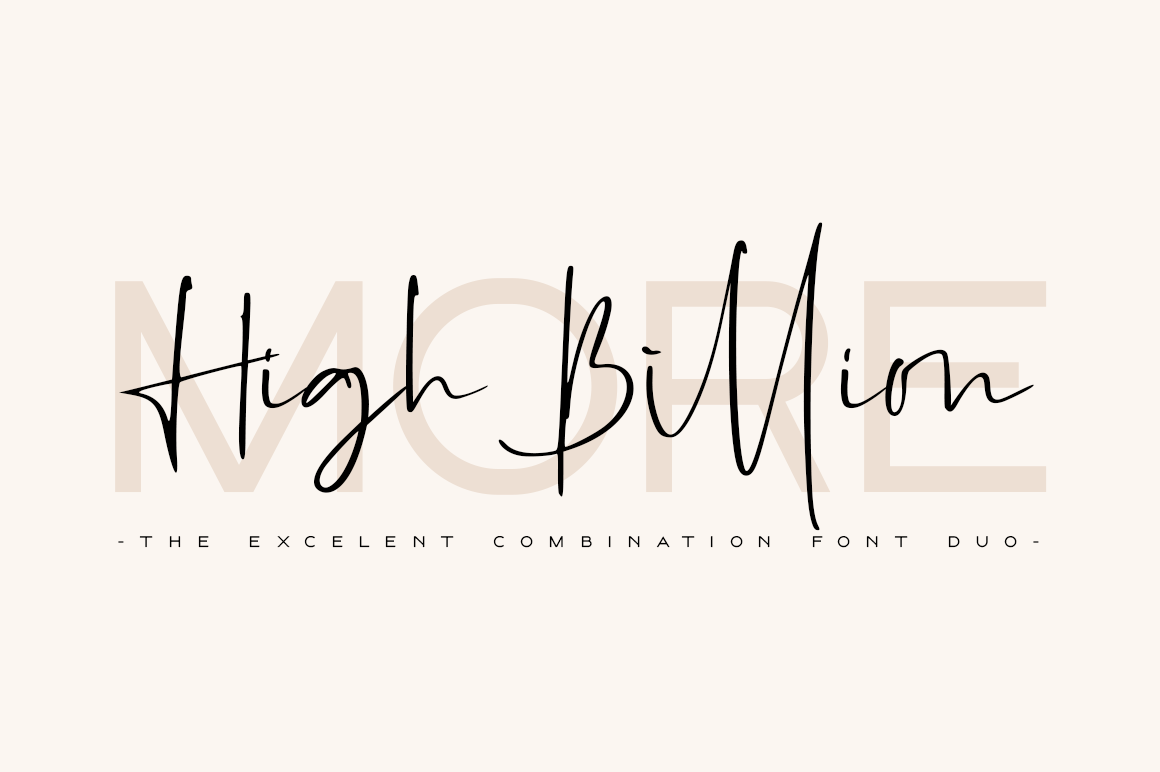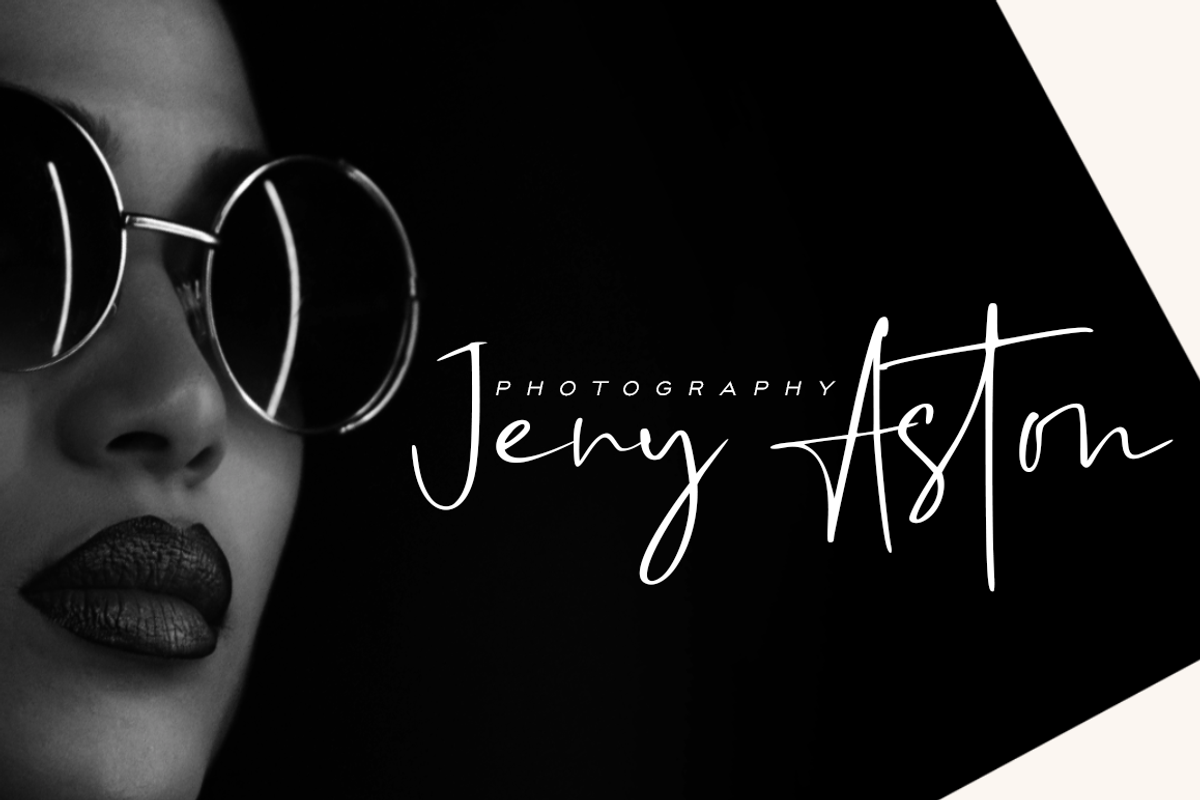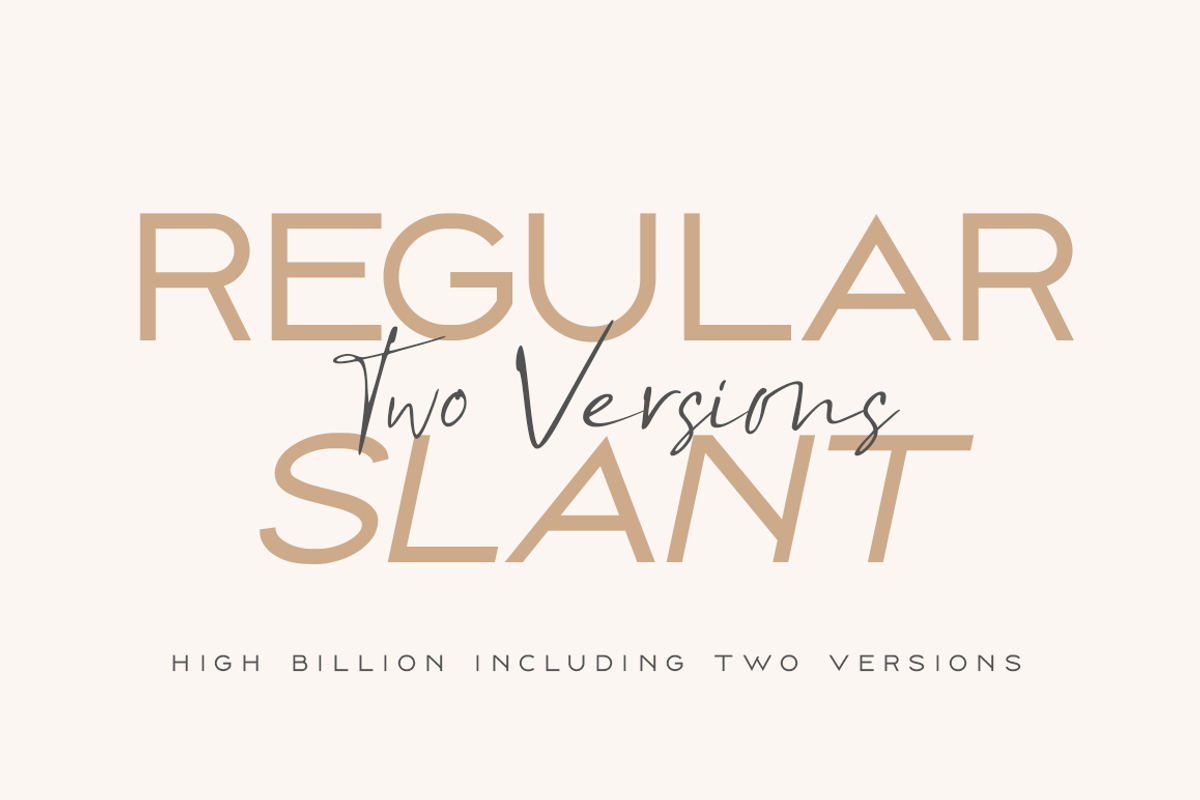
High Billion Font Duo
Introduce Excellent combination modern font duo in High Billion the stylish modern and natural fonts combination with casual chic flair. These are perfect for branding, wedding invites and cards, and more option for your requirement.
High Billion include two font styles with full set of natural hand draw for script and elegant with all uppercase letters for sans serif. Numerals, a large range of punctuation and ligatures giving realistic hand-lettered style.